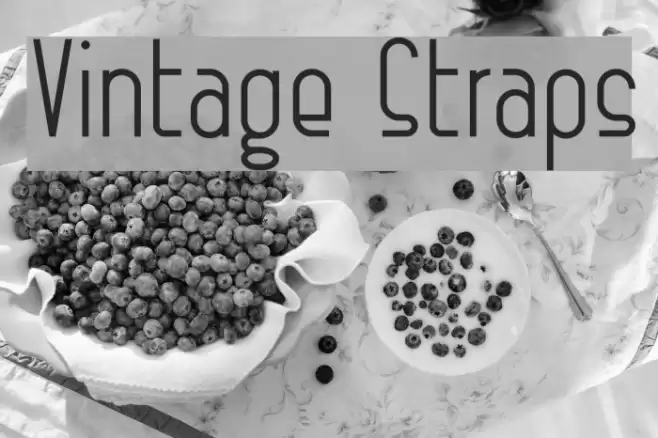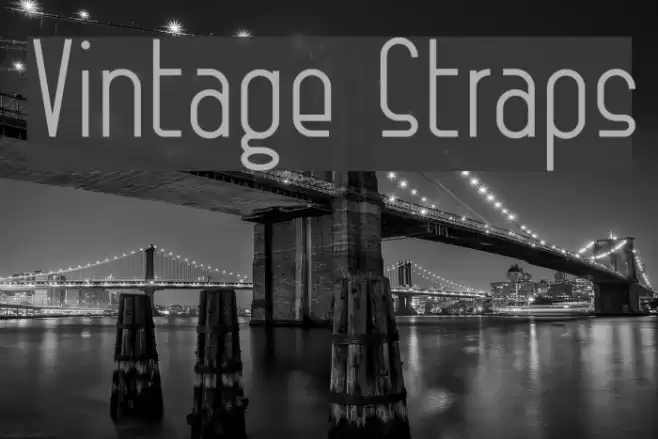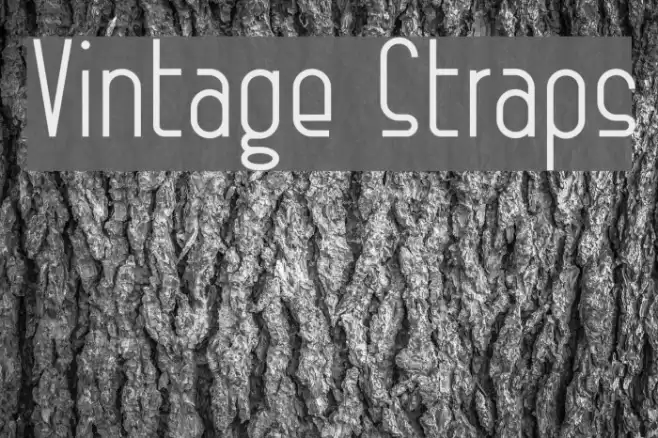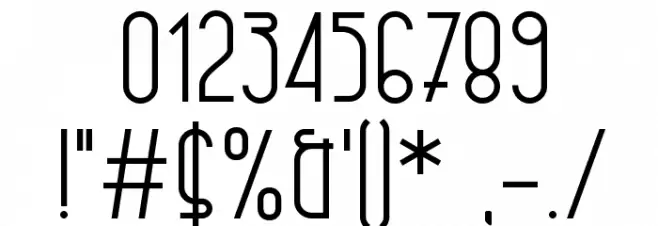
Vintage Straps Font
Vintage Straps Description
This font features a clean and modern sans-serif design with a geometric structure. The characters are tall and narrow, giving it a condensed appearance. The strokes are consistent in weight, providing a uniform look across all characters. The uppercase and lowercase letters maintain a harmonious balance, while the numerals are clear and legible. Special characters are well-integrated, ensuring versatility in various design contexts. The overall style is minimalist, making it suitable for contemporary design projects.
A modern, geometric sans-serif font with a condensed and minimalist style from Uncategorized fonts.
- Proposed Projects: Ideal for branding, editorial design, posters, and digital interfaces where a modern and clean aesthetic is desired.